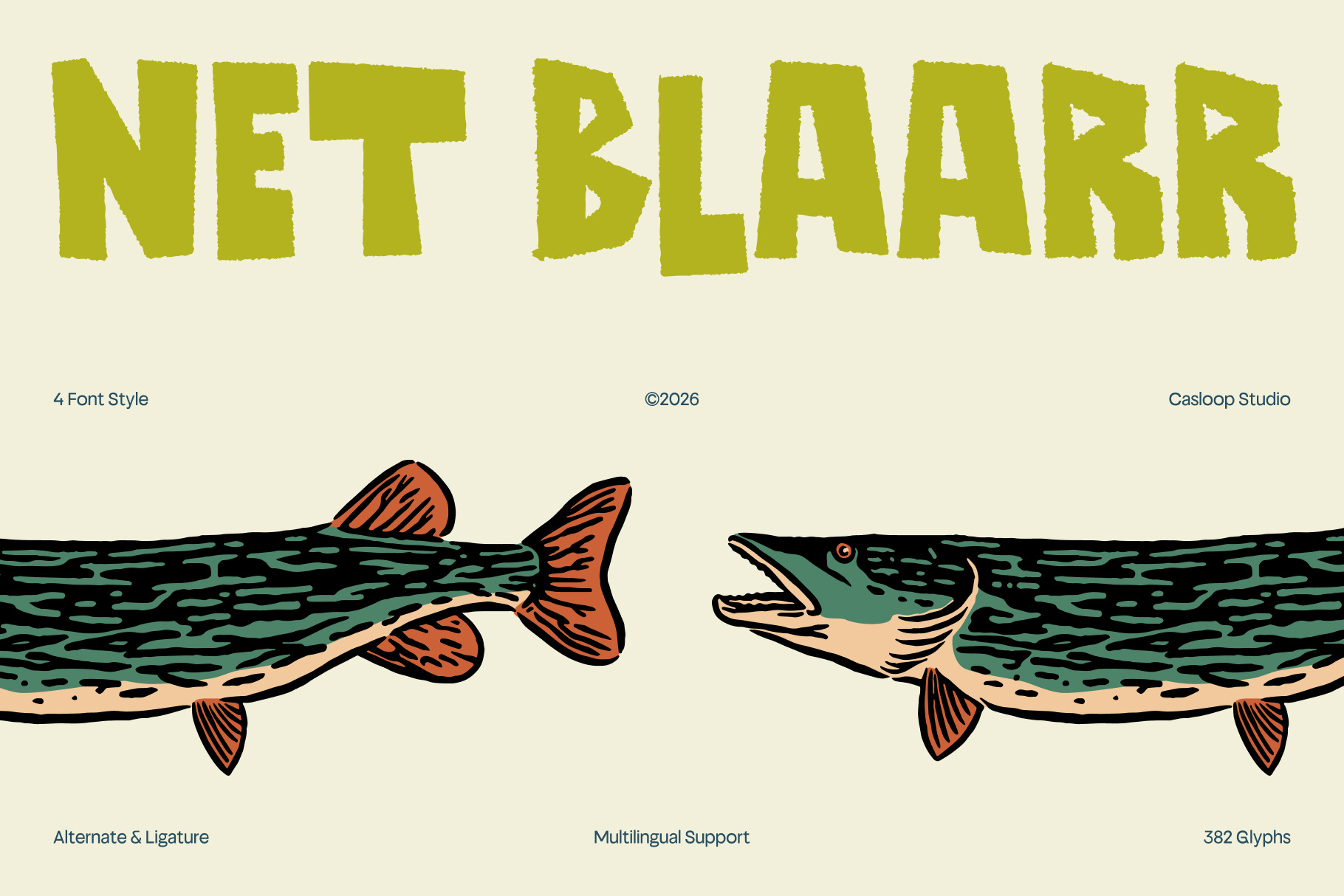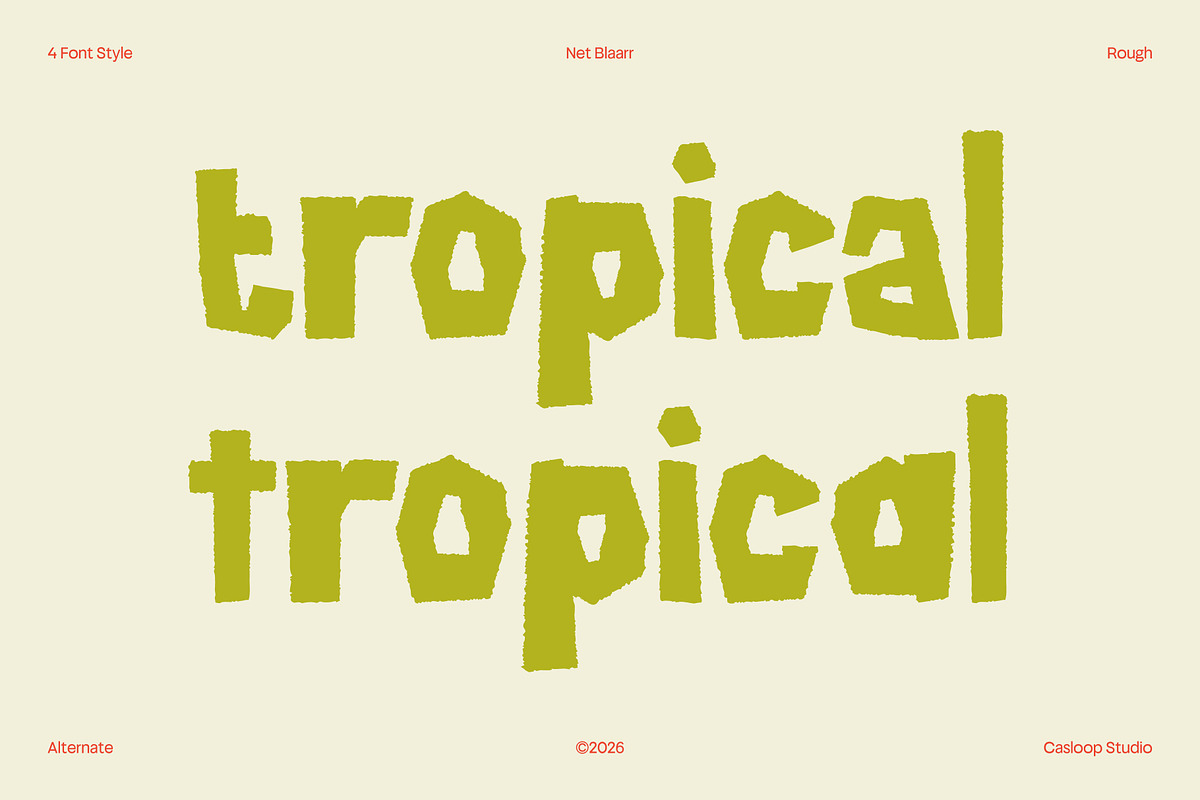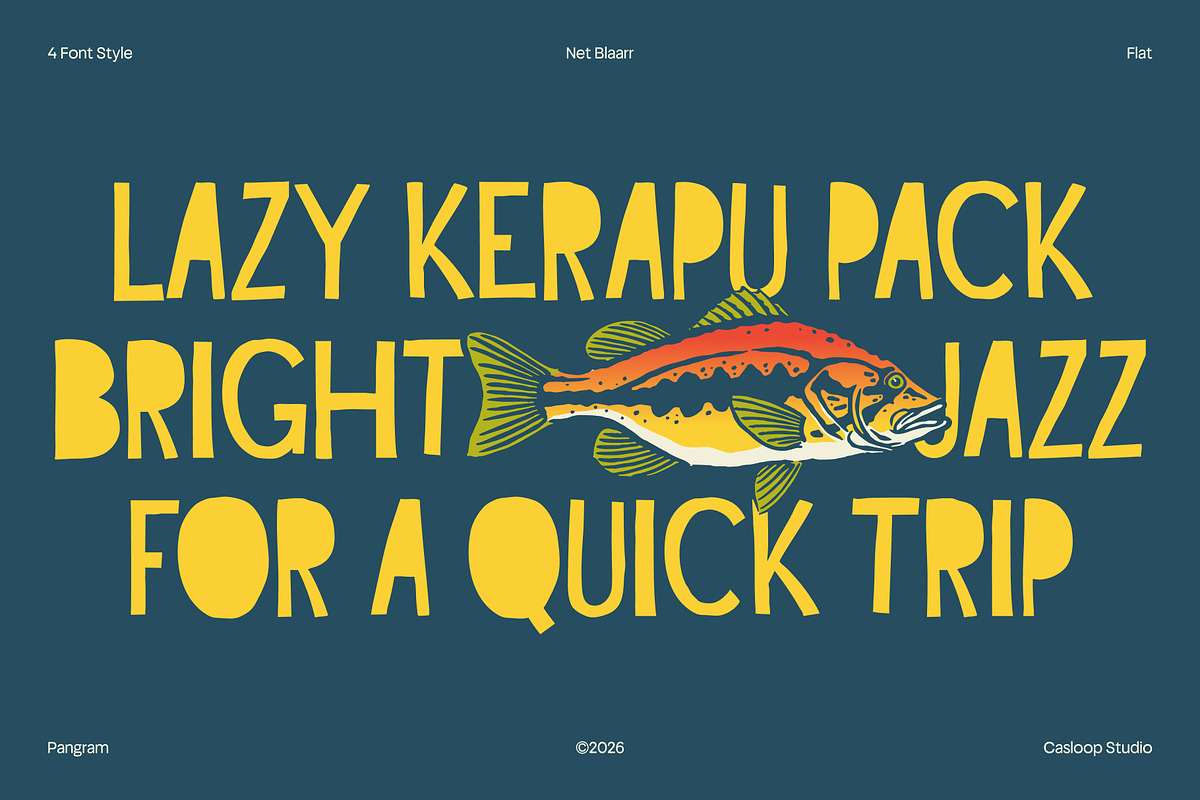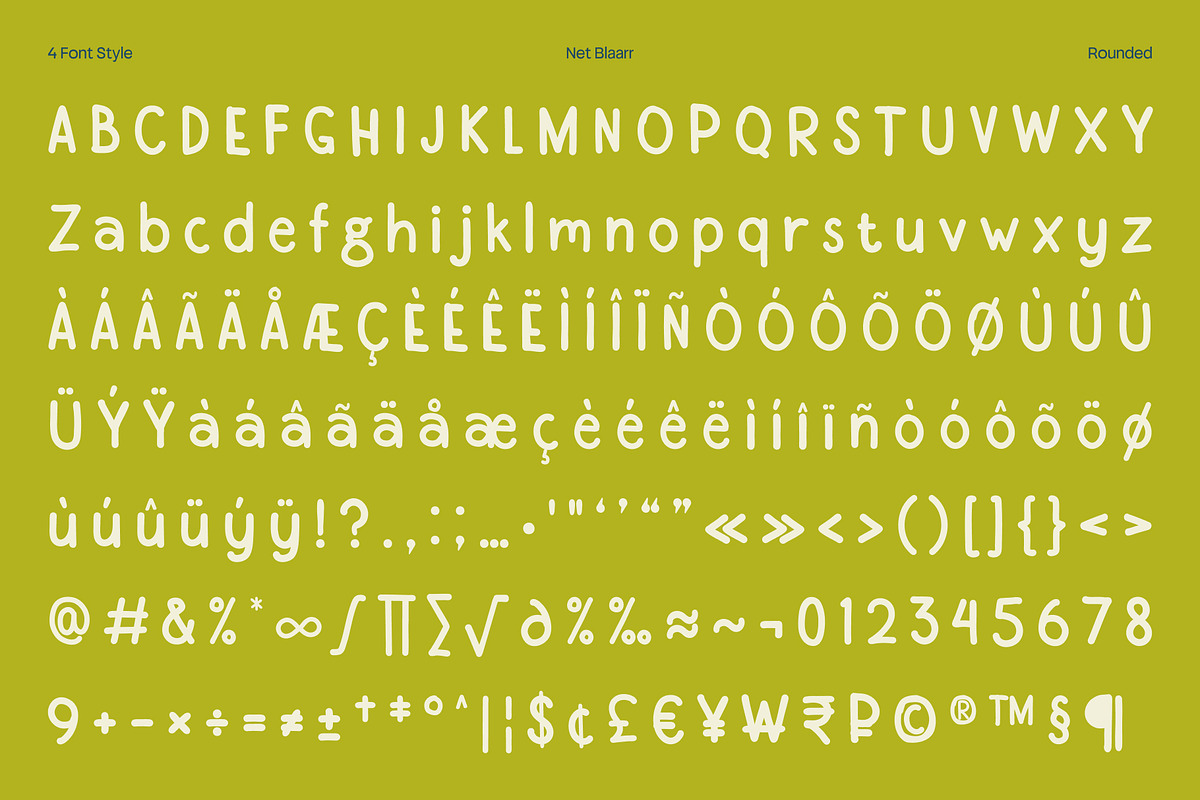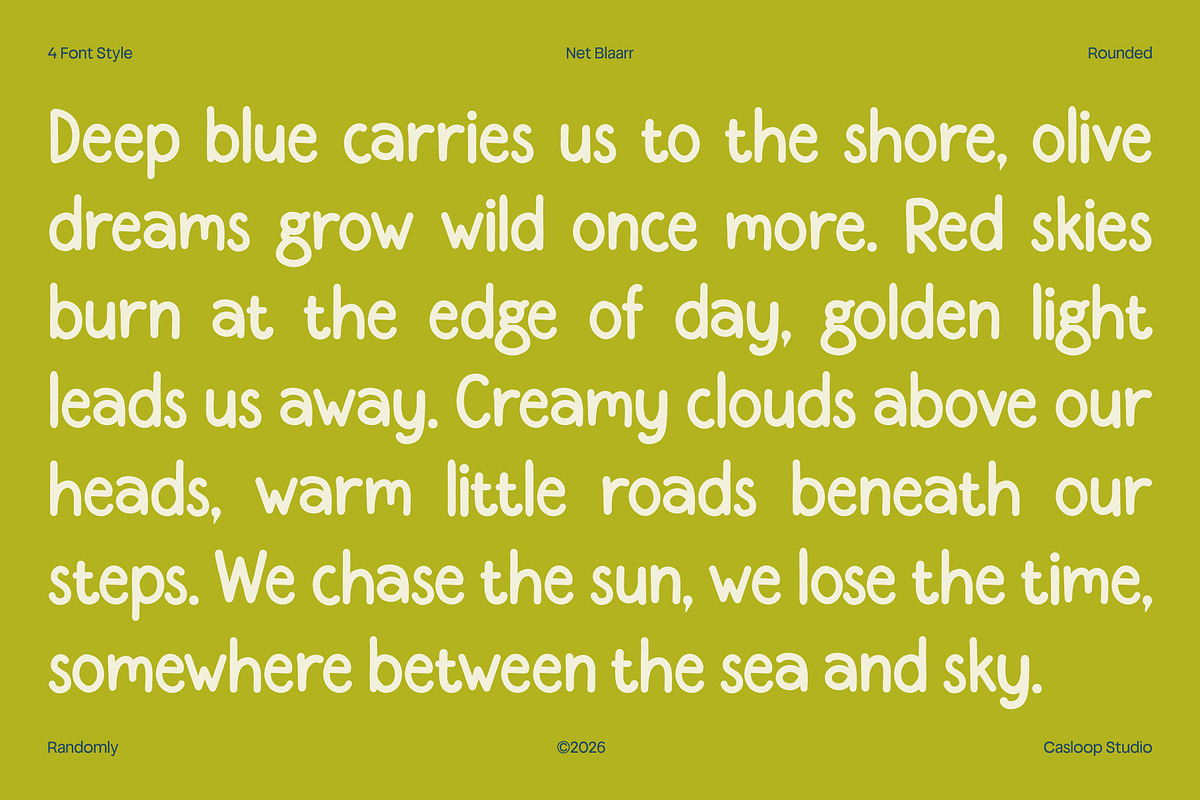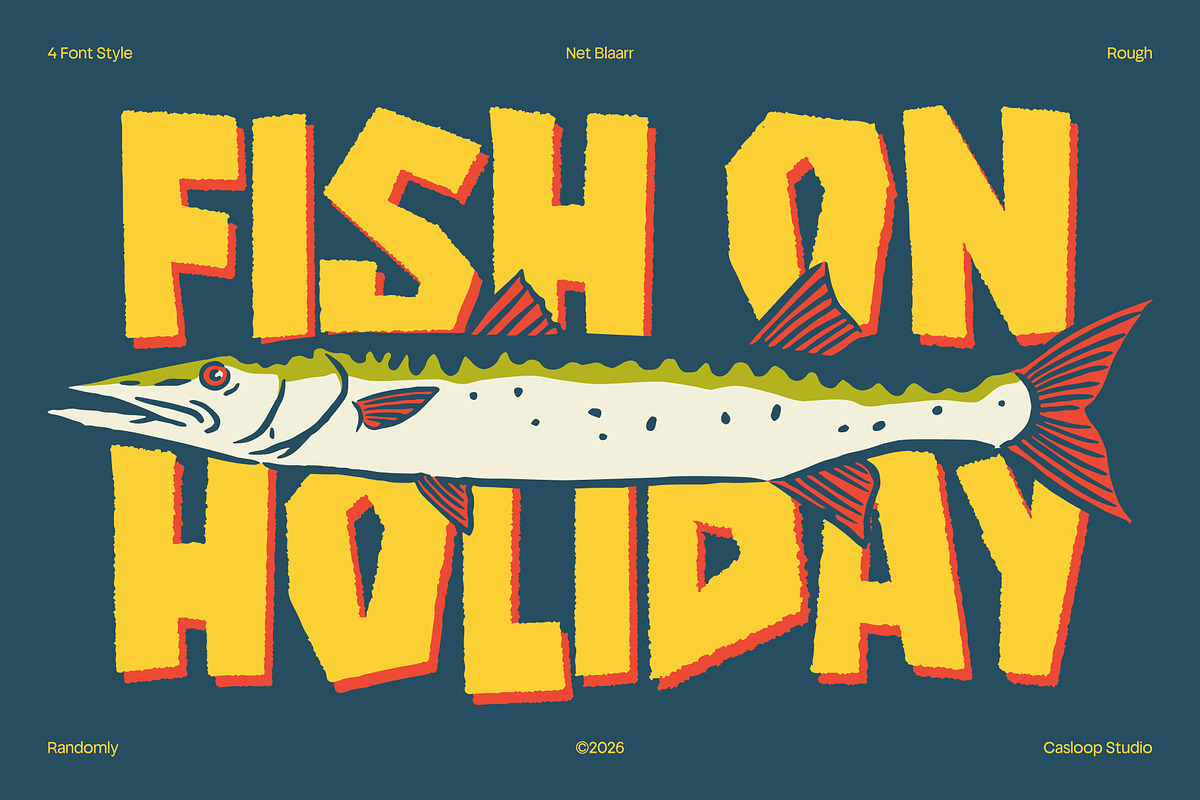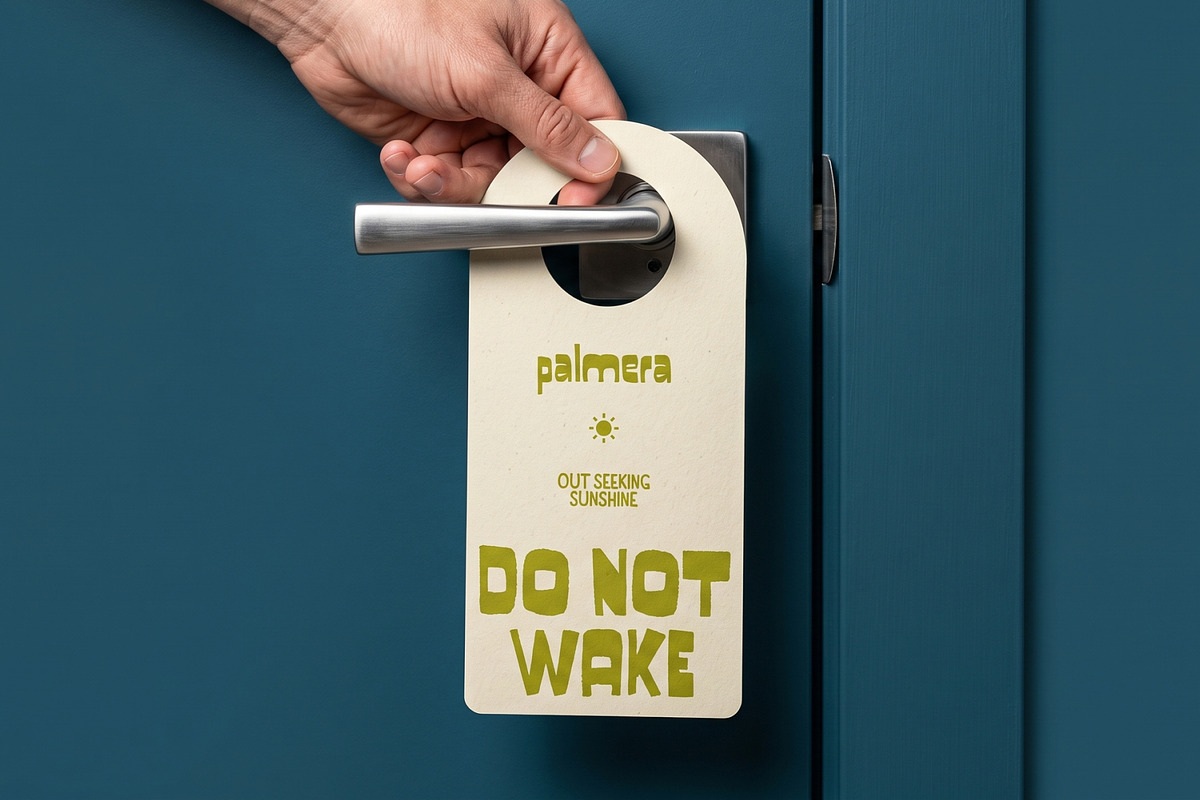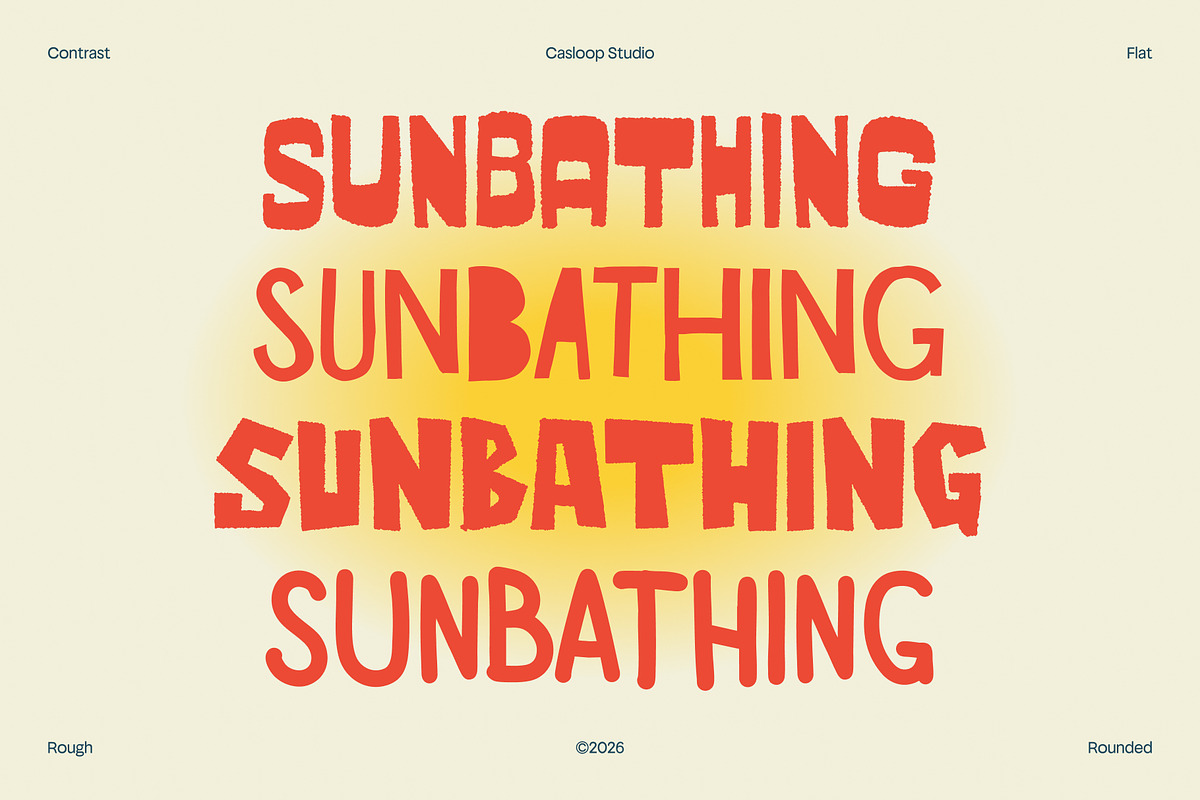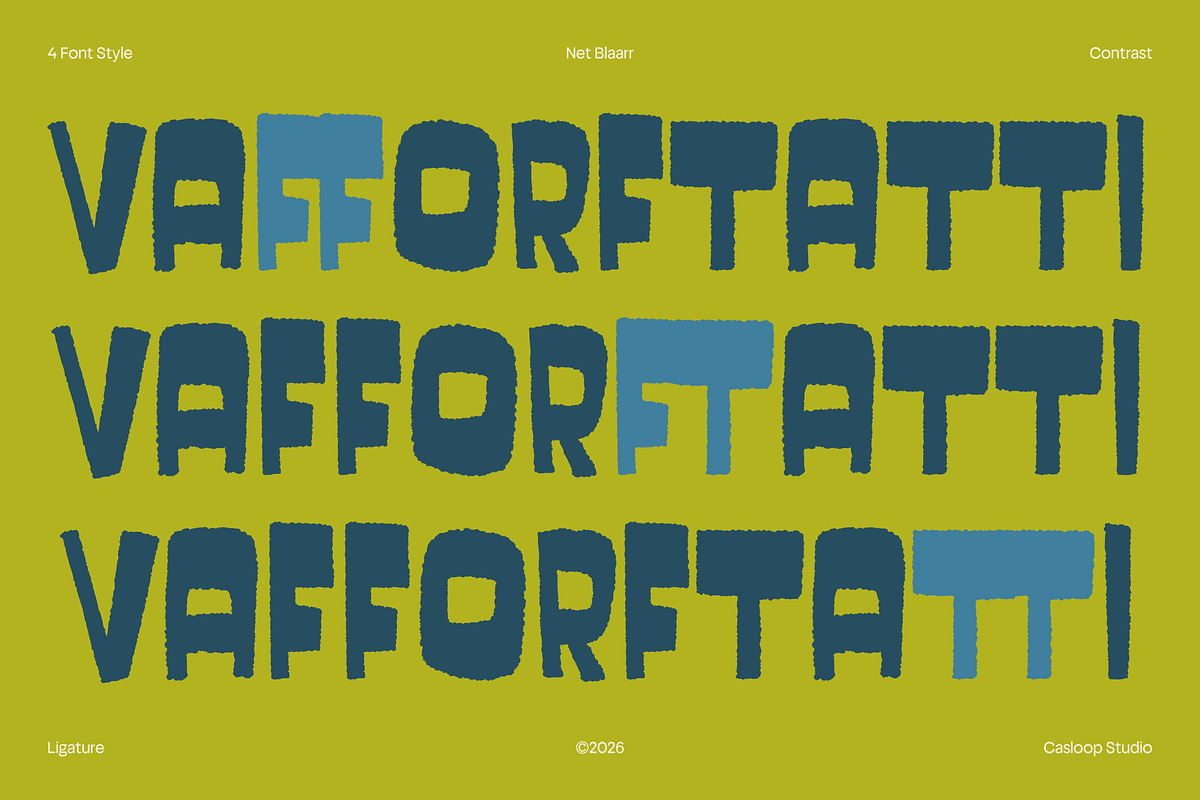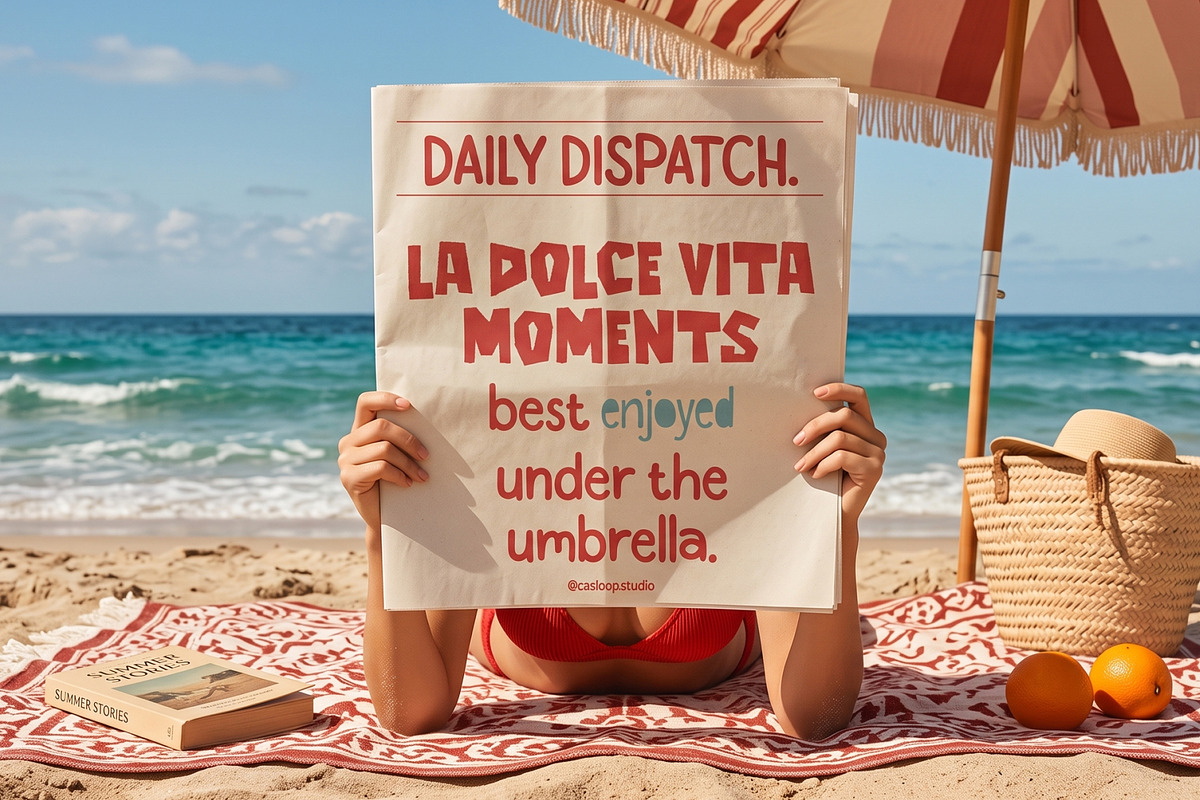
Net Blaarr – Retro Display Typeface
Net Blaarr is a stylistic display typeface that blends playful retro character with a handcrafted, nostalgic feel. Its defining characters N, E, T, R, A, and S feature rough edges and an intentionally uneven stroke rhythm, creating a spontaneous personality while maintaining a solid, readable structure. This balance between imperfection and clarity gives Net Blaarr a warm, casual presence that feels expressive without becoming chaotic. With four distinct styles, it adapts effortlessly to cafe and bistro branding, vacation graphics, packaging, signage, and display headlines that call for a friendly, vintage-inspired identity with a little rough-edged charm. Recommended pairing with: Nunito, DM Sans, Lora, Cooper Black, Futura, Franklin Gothic
Uppercase & Lowercase,
Numbers and punctuation,
Ligatures & Stylistic Alternates Characters
Multilingulal Support : Bosnian, Catalan, Czech, Danish, German, English, Spanish, Estonian, Finnish, French, Irish, Croatian, Hungarian, Icelandic, Italian, Lithuanian, Latvian, Dutch, Norwegian, Polish, Portuguese, Romanian, Slovak, Slovenian, Albanian, Swedish, Turkish.